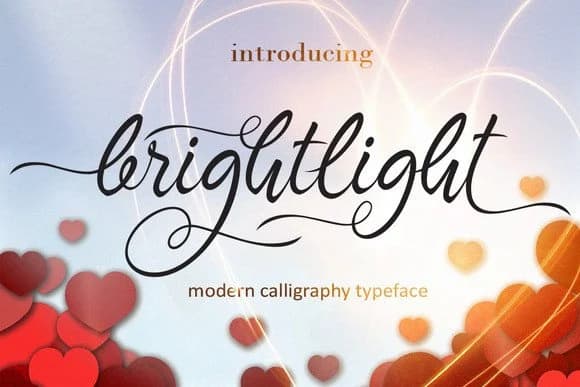
About Brightlight Font
Brightlight Font by Byuly Ayika is a flowing script typeface that captures handwritten elegance with natural, graceful character strokes. The design brings an authentic, organic feel to contemporary projects that call for warmth and personality.
This versatile script works beautifully across multiple contexts. Designers frequently choose it for wedding invitation suites, where its flowing letterforms add romantic sophistication. It's equally well-suited for creating luxe packaging design for artisan cosmetics, hand-lettered greeting card designs, and polished social media graphics where personality matters. The typeface's smooth, connected letterforms make it particularly effective for high-end branding applications where authenticity resonates with audiences seeking a human touch over corporate sterility. Brightlight integrates seamlessly with major design platforms including Adobe Creative Suite and Canva, making it accessible whether you're working in Illustrator, Photoshop, or browser-based tools.
The comprehensive glyph set supports extensive language coverage, ensuring consistency across multilingual projects when needed. The typeface maintains legibility and visual impact across both print and digital applications, from editorial layouts to packaging labels to digital branding assets. Whether you're developing a refined brand identity for a boutique lifestyle business or designing commemorative materials with genuine character, Brightlight brings handwritten authenticity to your work. Get Brightlight Font on Creative Fabrica to add this elegant script to your design library.
Brightlight Font is a script font that shines as a display or heading face. Pair it with a clean sans-serif or serif font for body text β the contrast creates a clear hierarchy while the two styles stay balanced and easy to read.